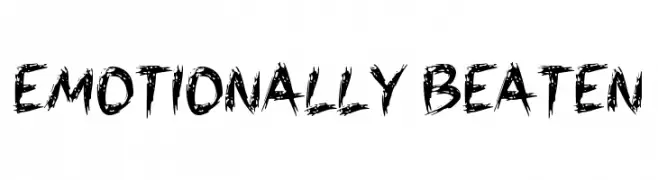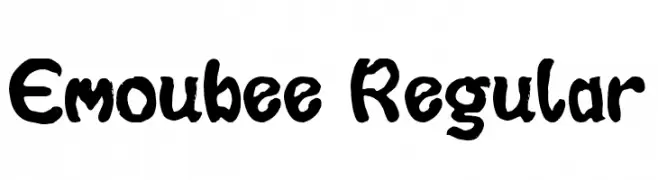
A playful and expressive handwritten font with dynamic strokes.
A bold, distressed font with jagged, chaotic strokes.
A bold, playful font with a hand-drawn, artistic style.
A bold, geometric font with a modern and uniform design.
A bold, italicized font with a modern, dynamic, and slightly condensed style.
A bold, extended, and modern geometric font with strong visual impact.
A bold, extended, and geometric font with a modern style.
A bold, italicized, and extended font with a modern and dynamic style.